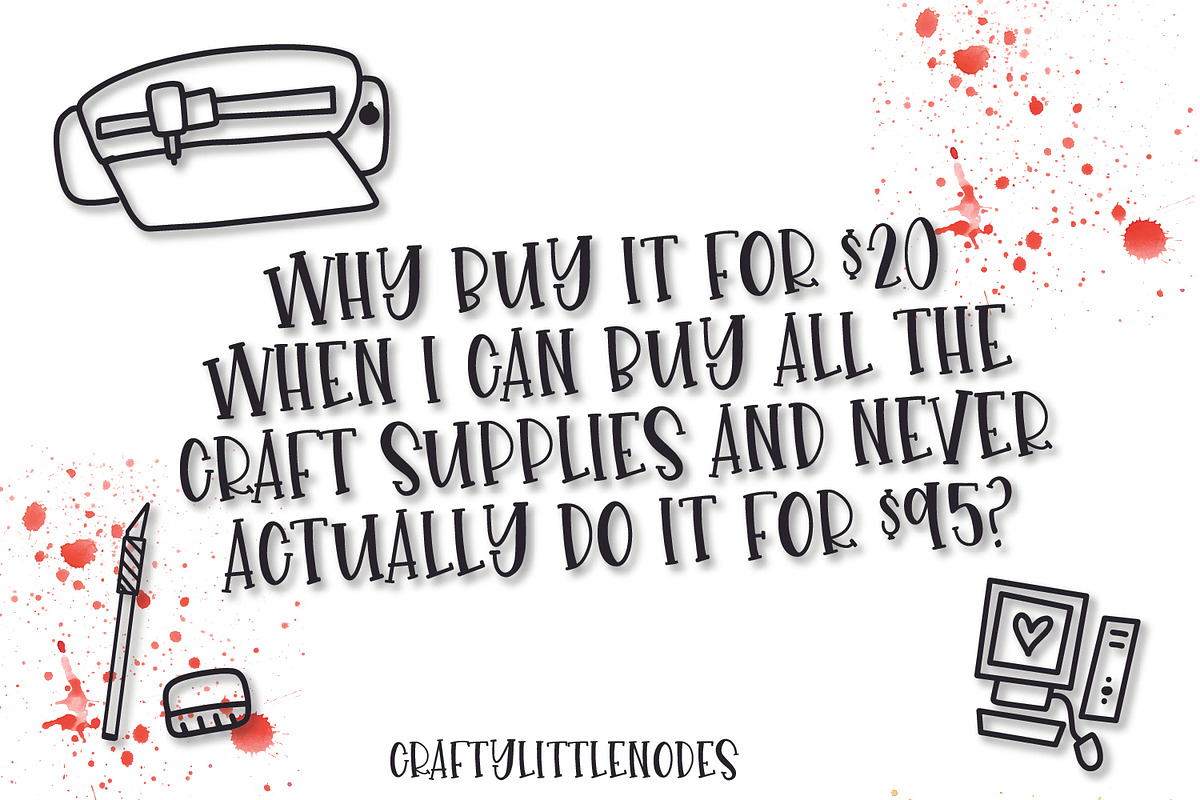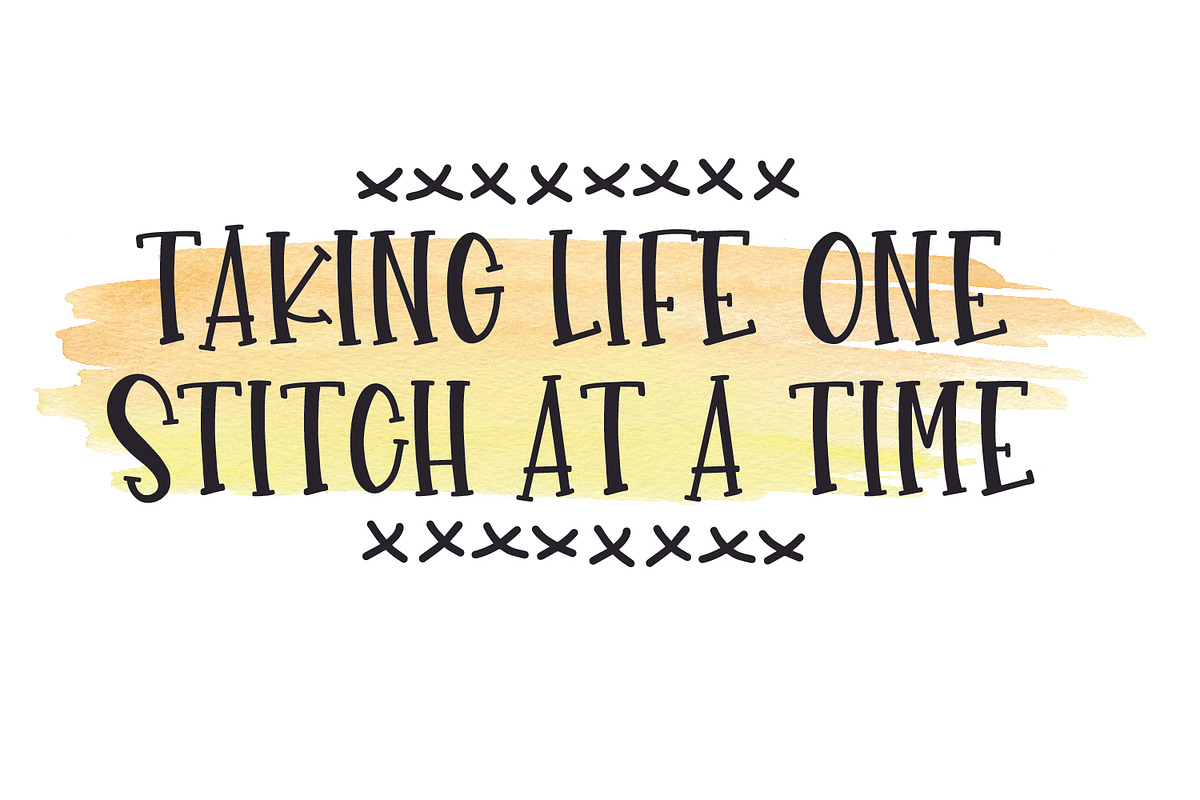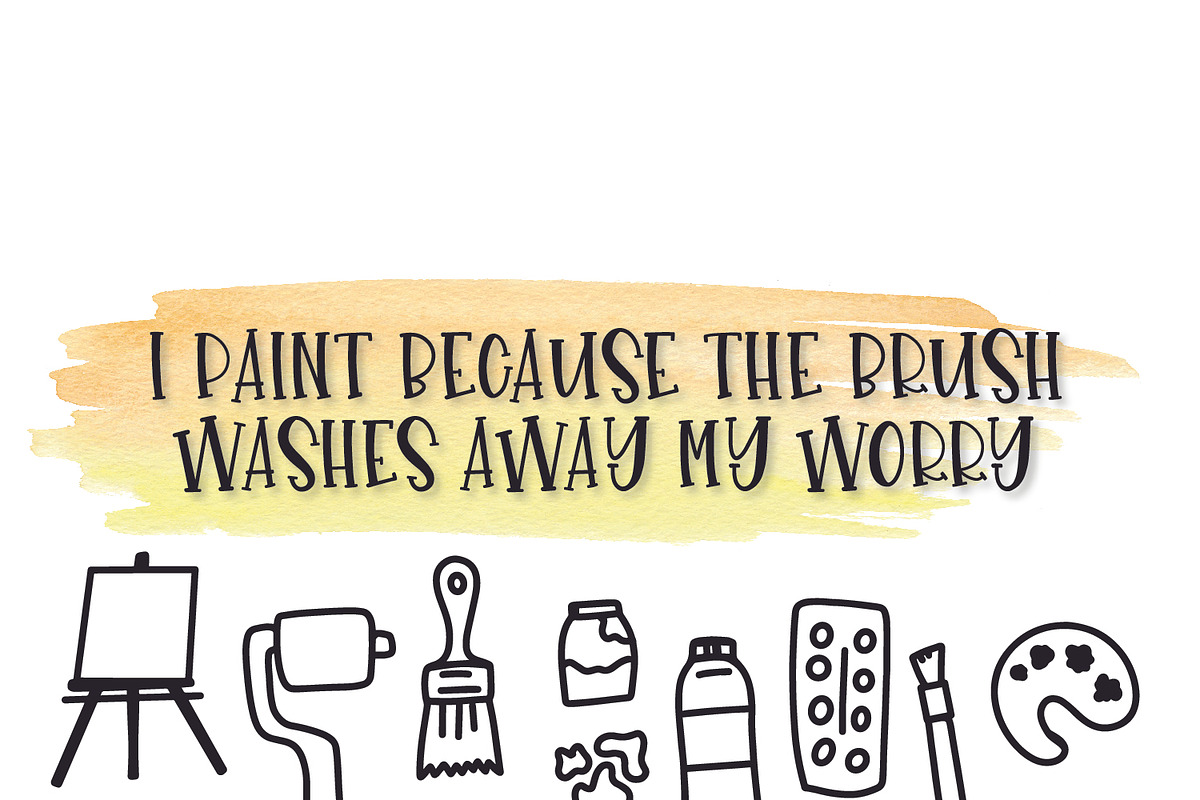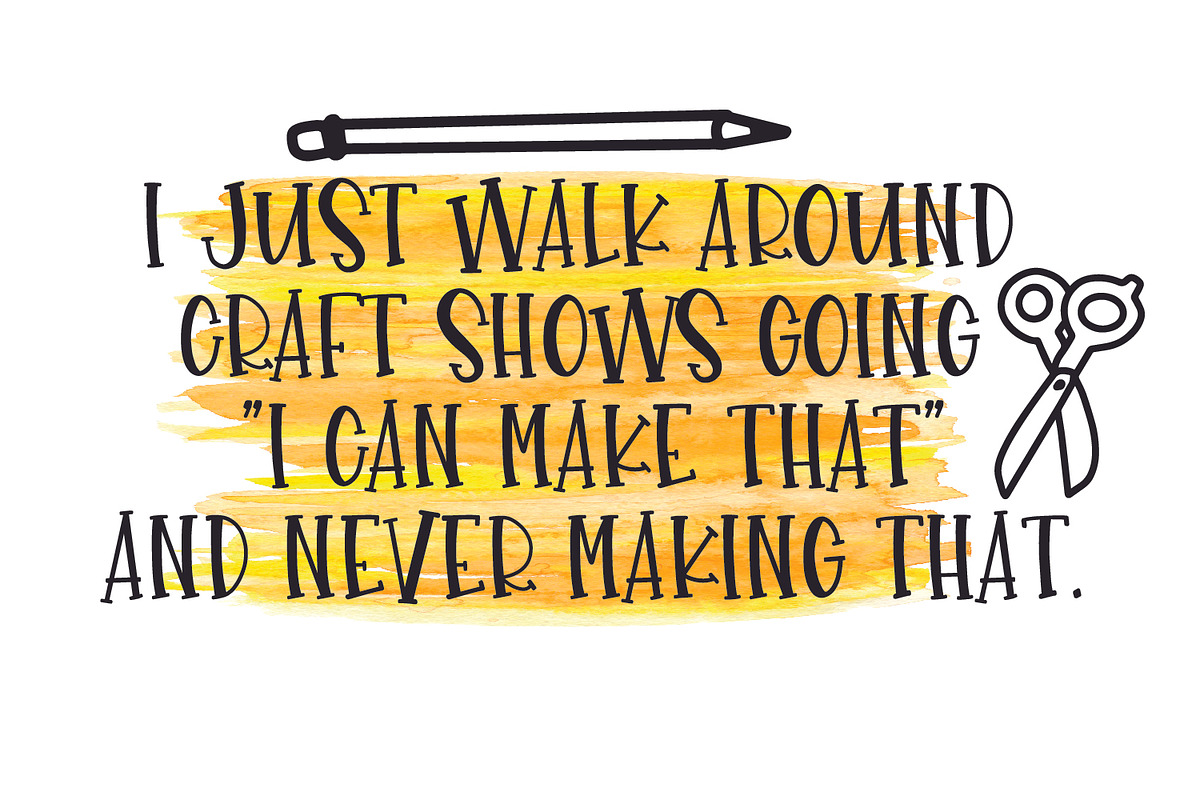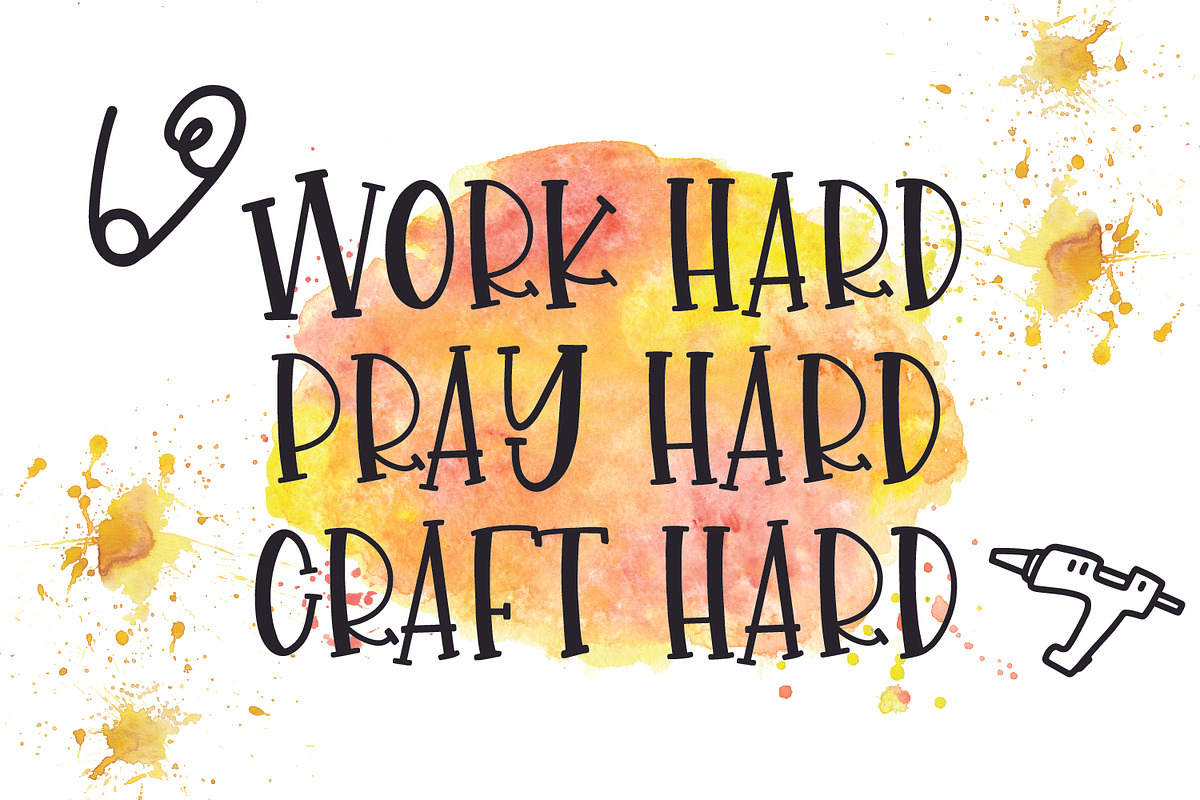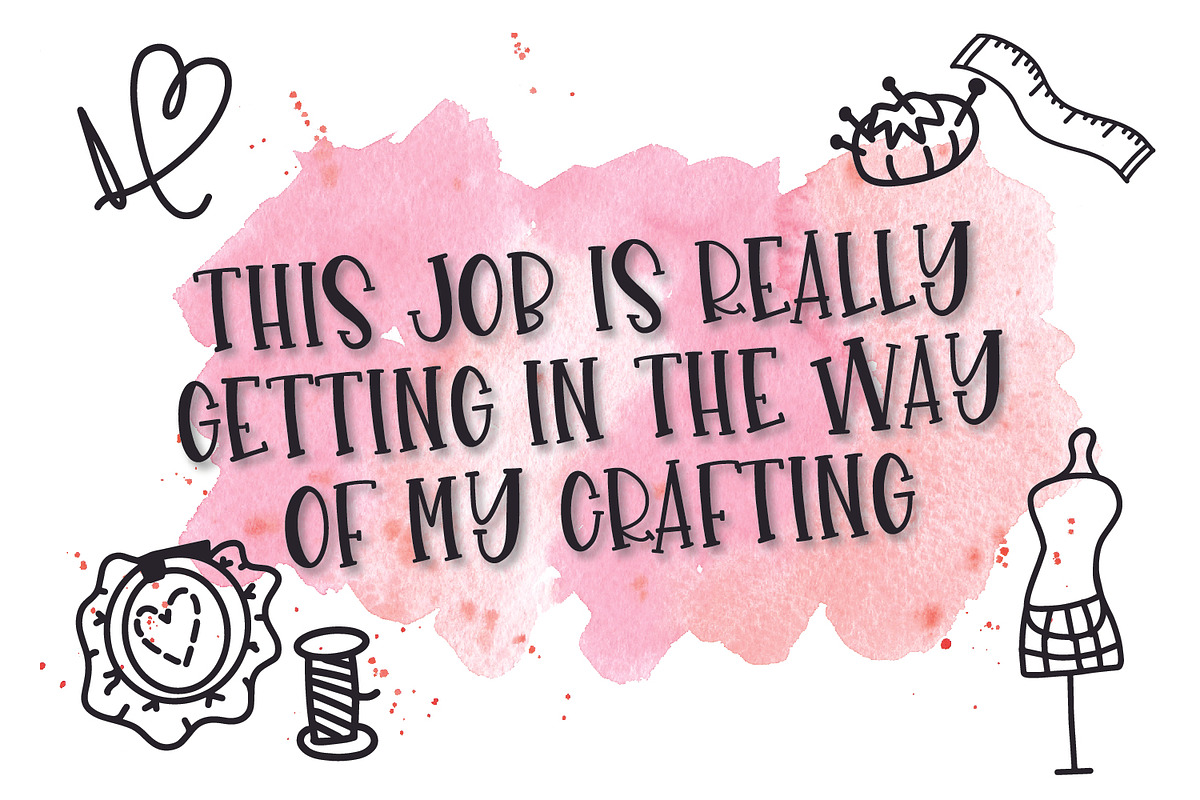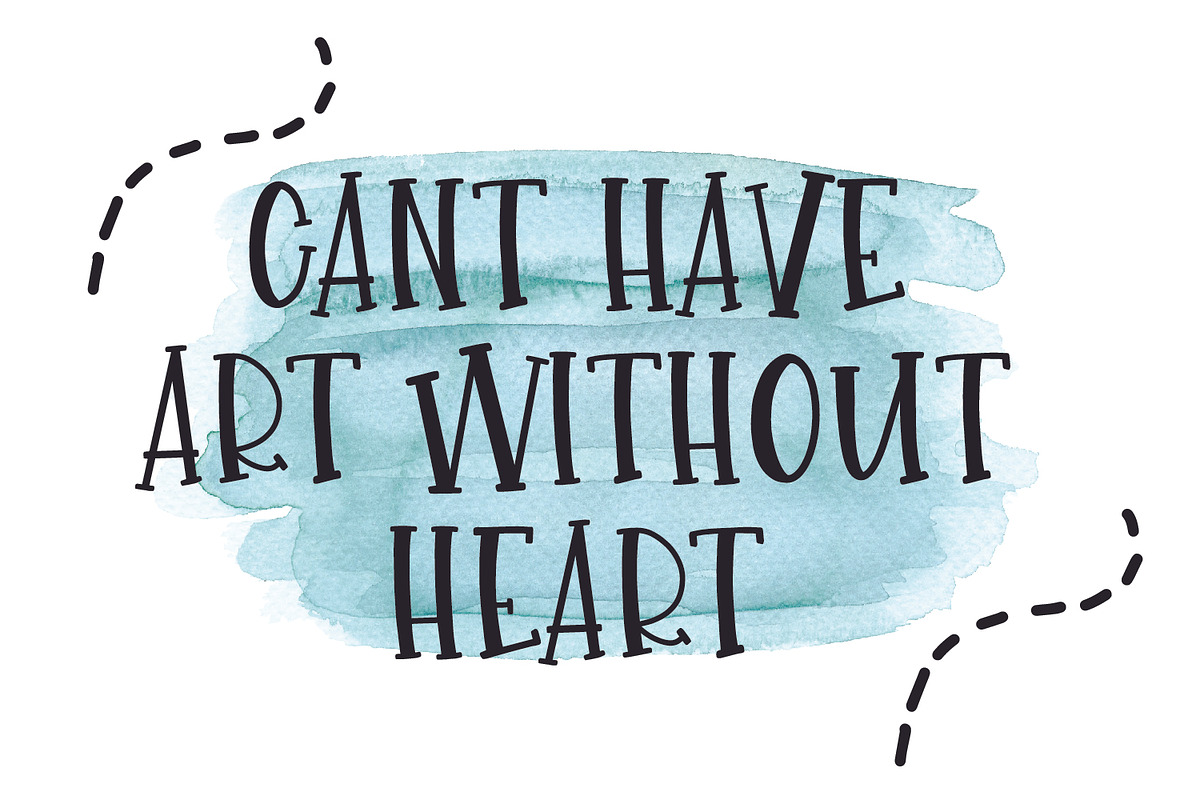
Glue Gun - A Font & Dingbat Duo
Glue Gun A Font Dingbat Duo by CraftyLittleNodes is a font selected for branding, posters, packaging, typography.
Why Glue Gun - A Font & Dingbat Duo is worth a look
Glue Gun - A Font & Dingbat Duo by CraftyLittleNodes fits naturally into Branding, posters, packaging, typography.